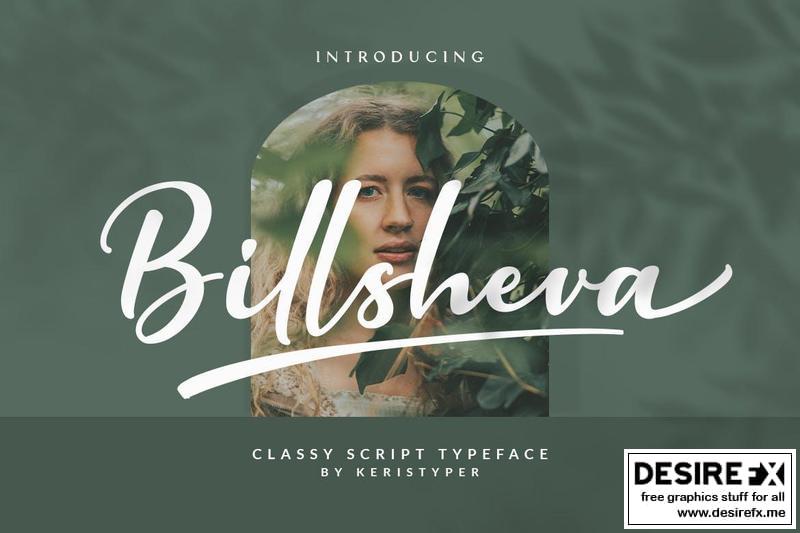
Billsheva Classy Script Font is a modern handwritten script font with lovely touch. Billsheva Font will work perfectly for fashion, e-commerce brands, trend blogs, wedding boutiques or any business that wants to appear upscale and chic.
Billsheva Font multilingual support:
Afrikaans, Albanian, Catalan, Danish, Dutch, English, Estonian, French, Finnish, German, Icelandic, Indonesian, Italian, Malay, Norwegian, Portuguese, Spanish, Swedish, Zulu, and many more.
- Standard & Multilingual glyphs
- Ligature